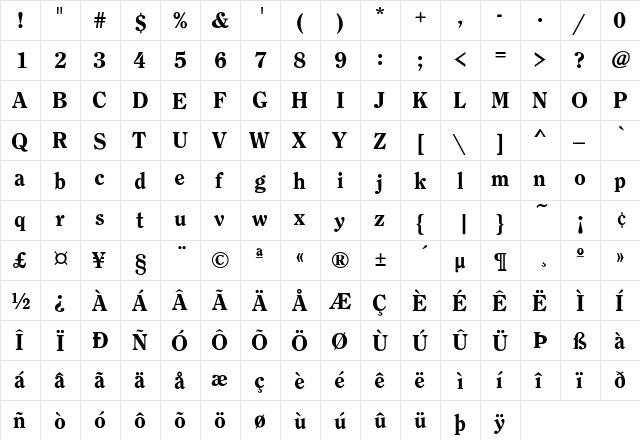
Baxterly Heavy Regular
Design Context for Baxterly Heavy Typeface
Baxterly Heavy takes a measured approach to typography — its balanced proportions and neutral character make it a reliable workhorse for both digital and print work.